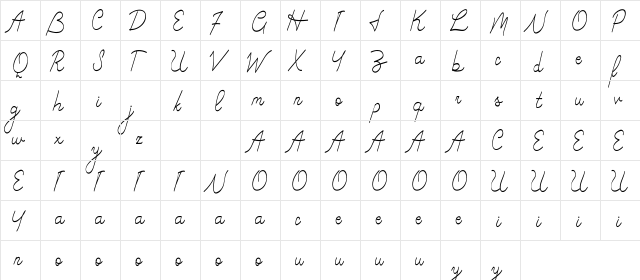
Greatest Show Demo Regular
| Foundry | Edric Studio |
| Designer | Saila nurissalma & Suci Anita |
Design Context for Greatest Show Demo Typeface
Greatest Show Demo offers clean, dependable letterforms without strong stylistic allegiance, making it a practical choice for designers who need flexibility.